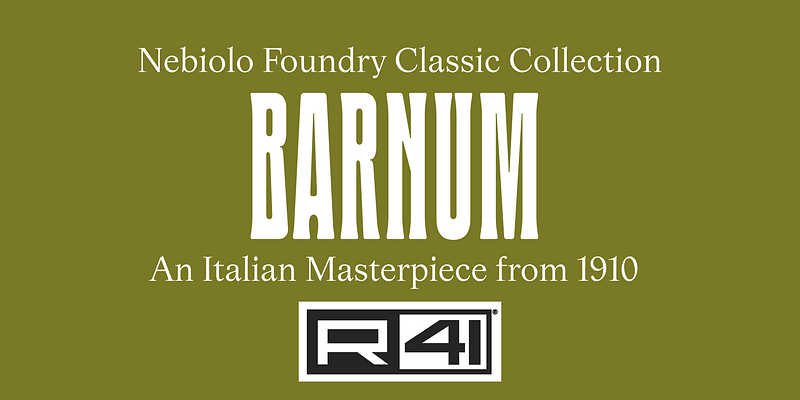
The Aldo Novarese Collection
All the most iconic fonts from the legendary Nebiolo Foundry in Turin, designed by Aldo Novarese, digitized on the basis of their original design and completely authentic.